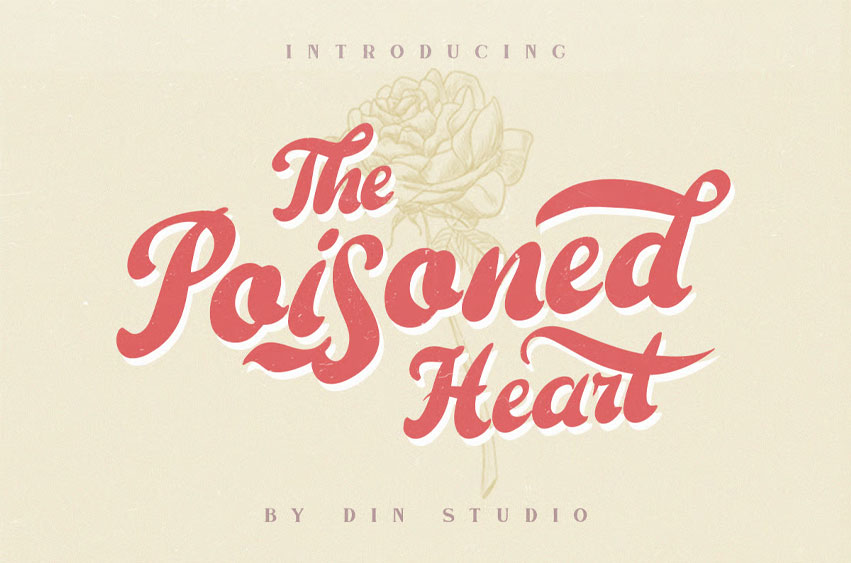
The Poisoned Heart
The Poisoned Heart is an amazing display font.
The font is suitable for any project like branding, lettering, T-shirt print, and many others.
• Accents (Multilingual characters)
• 10 Ligatures
• 76 Alternates and swashes